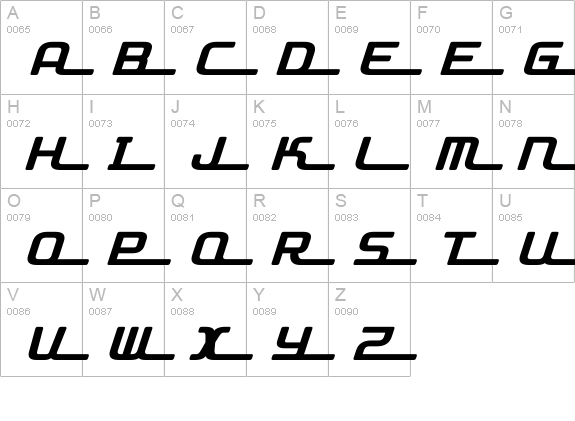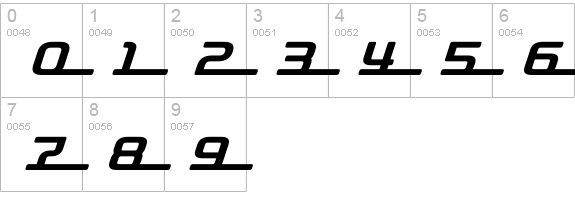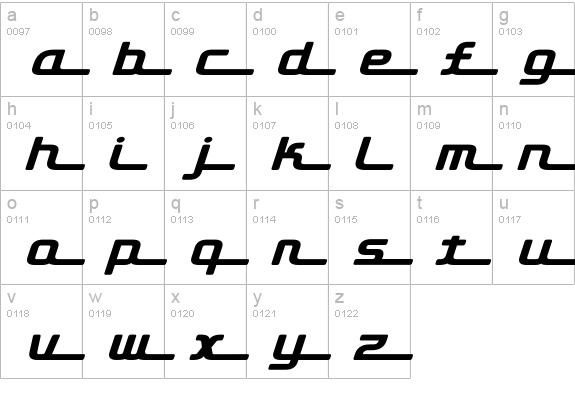
D3 Roadsterism Long Italic Font Details
D3 Roadsterism Long Italic is a distinctive, italic variant in the D3 typeface family \xE2\x80\x94 well suited to design and typography projects.
The D3 Roadsterism Long Italic font is a stunning and bold typeface that exudes charm and elegance. With its elongated letterforms and delicate slant, this font adds a touch of sophistication to any design project. Designed with attention to detail, the D3 Roadsterism Long Italic font is perfect for creating eye-catching headlines, stylish logos, and striking branding materials. Its unique italicized style adds a sense of motion and fluidity, making it ideal for projects that require a dynamic and energetic feel. What sets the D3 Roadsterism Long Italic font apart is not only its remarkable design but also its availability for free. That's right, this incredible font can be freely downloaded at FontsMarket.com. Whether you're a professional designer or an enthusiast, you can easily access and utilize this font in your creative endeavors without any cost. The D3 Roadsterism Long Italic font is versatile and adaptable, making it suitable for a wide range of design applications. From fashion and beauty to technology and travel, this font effortlessly captures attention and adds a touch of sophistication to any project. So, don't miss the opportunity to enhance your designs with the D3 Roadsterism Long Italic font. Download it for free today at FontsMarket.com and experience the power of this exceptional typeface.